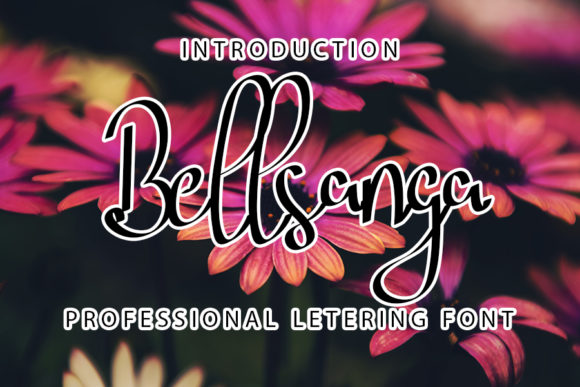
Discover the Charm of Bellsanga: A Perfect Font for Makers
As I sat down to design a new line of candle labels, I knew I needed something special. The font had to be elegant yet approachable, with a touch of whimsy. That's when I stumbled upon Bellsanga, and it was love at first sight. This sweet and cursive handwritten font is not just visually appealing; it brings a joyful and romantic touch to any project.
Bringing Bellsanga to Life on Candle Labels
My first project with Bellsanga was a set of candle labels. The gentle curves and flowing lines of this font perfectly complemented the soft, natural scents of my candles. The labels, now adorned with Bellsanga, added a touch of elegance and personality, making each candle feel like a thoughtful, handcrafted gift.
Perfect for Greeting Cards and Invitations
Next, I moved on to creating a series of greeting cards and wedding invitations. Bellsanga's romantic and joyful style made it an ideal choice for these heartfelt messages. The font's readability and charm made it easy to use for both short phrases and longer text, ensuring that every word felt personal and special.
Enhancing Your Brand with Bellsanga
One of the most significant benefits of using Bellsanga is its ability to enhance your brand's identity. Whether you're designing product tags, packaging, or digital downloads, this font can add a consistent and professional touch. For instance, I used Bellsanga to create a cohesive look for my boutique packaging, from the labels to the thank-you notes, making each item feel like part of a curated collection.
Seasonal and Special Occasion Designs
Bellsanga also shines in seasonal and special occasion designs. I recently designed a set of holiday tags and printable wall art. The font's playful and elegant nature made it perfect for festive greetings and decorative elements. The result was a set of designs that felt both modern and timeless, capturing the spirit of the season.
Practical Tips for Using Bellsanga
When using Bellsanga, it's important to consider readability, especially for small stickers, product labels, and printed cards. While the font is beautifully detailed, it's best to use it for titles, names, and decorative wording rather than long paragraphs. Pairing Bellsanga with a clean sans serif or simple serif font can create a balanced and harmonious design.
Creative Font Pairings for Bellsanga
To maximize the impact of Bellsanga, consider pairing it with complementary fonts. A clean sans serif like Helvetica or a simple serif like Times New Roman can provide a nice contrast, making your designs more versatile. For a more artistic touch, try combining Bellsanga with another script or handwritten font, but be mindful of overcomplicating the design.
Final Thoughts on Bellsanga
In conclusion, Bellsanga is a versatile and charming font that can elevate any handmade or commercial project. From candle labels to wedding invitations, this typeface adds a touch of elegance and joy. By carefully considering its use and pairing it thoughtfully, you can create designs that stand out and leave a lasting impression. Happy crafting!